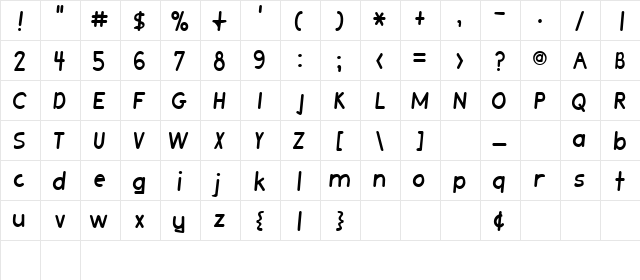
Hardy Normal
Design Context for Hardy Typeface
Hardy offers clean, dependable letterforms without strong stylistic allegiance, making it a practical choice for designers who need flexibility.